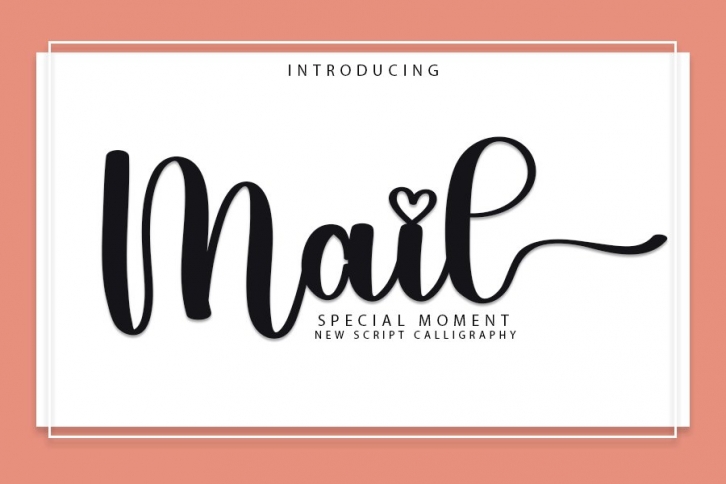
Mail is a gorgeous font that was realeased on November 1, 2022. The font can be used in many style contexts and design environments. Perfect for invitations, magazines, websites, logos, and more! It was designed by InermediaSTUDIO and the file size is 6.27 MB. Thanks for checking out this font!